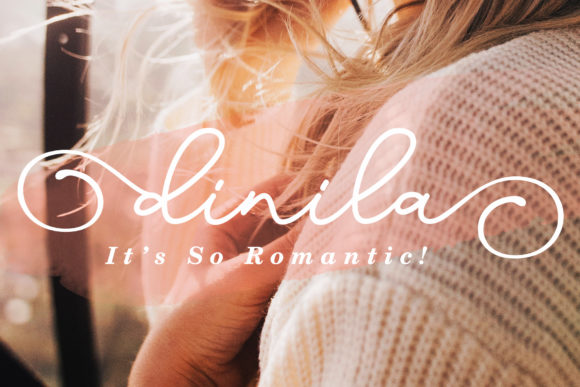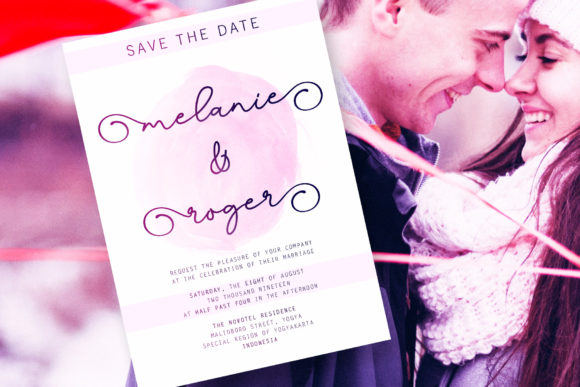
Dinila Font
About Dinila Font
Dinila is a fashionable and quirky handwritten font with a unique style. It will add an authentic and personal touch to any design project!